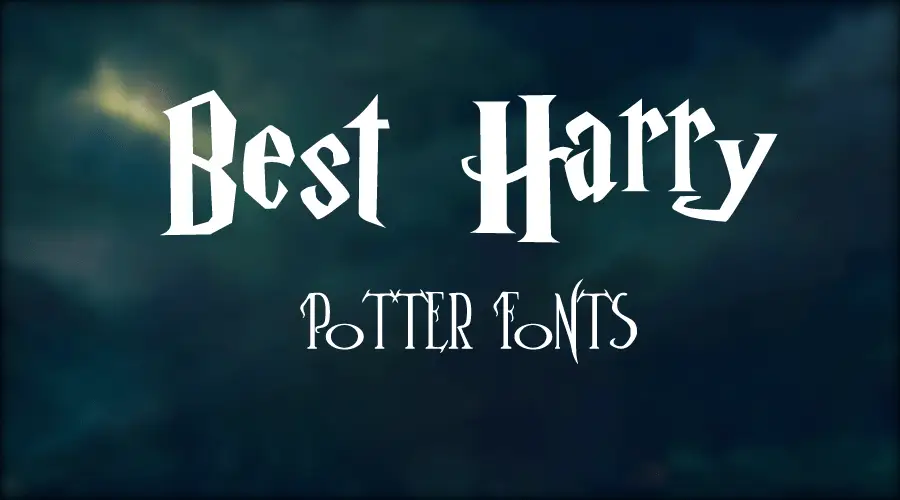
If you’re a fan of the magical world of Harry Potter, you’ll be delighted to explore a collection of enchanting fonts inspired by the beloved series. These Harry Potter fonts capture the essence and whimsy of J.K. Rowling’s wizarding world, allowing you to bring a touch of magic to your projects and creations. Let’s dive into this captivating collection:
Harry Potter Book And Movie Fonts
Step into the enchanting world of Harry Potter with our incredible Harry Potter Book and Movie Fonts collection. Immerse yourself in the magic and wonder of J.K. Rowling’s beloved series as you explore a mesmerizing assortment of typefaces inspired by books and movies. From the famous Harry Potter font to mystical runes and charming designs, these fonts will transport you to the halls of Hogwarts and beyond.
Legendary Runes
The “Legendary Runes” font draws inspiration from the mystical symbols and ancient runic alphabets that play a significant role in the Harry Potter universe. Use this font to infuse your designs with mystery and ancient wisdom.
Dumbledore Font
The “Dumbledore Font” pays homage to the wise and revered headmaster of Hogwarts, Albus Dumbledore. This elegant and dignified font captures the essence of Dumbledore’s wisdom and authority, making it a fitting choice for projects that require a touch of gravitas.
HogwartsWizard Font
Step into the shoes of a Hogwarts wizard with the “HogwartsWizard Font.” This playful and whimsical typeface reflects the magical and mischievous spirit of the students at the School of Witchcraft and Wizardry. Let this font transport you to a world of spells and adventures.
Parseltongue
Unleash the power of the Dark Arts with the “Parseltongue” font. Inspired by the hissing language spoken by snakes, this font captures the eerie and sinister nature associated with Slytherin House and Lord Voldemort. Use it sparingly for a touch of dark allure.
Wizard World Font
Step into a world of magic and wonder with the “Wizard World Font.” This whimsical and playful typeface reflects the joyful and imaginative spirit of the wizarding community. Let this font add a dash of enchantment to your designs.
Magic School
Embrace the enchantment of learning at a magical institution with the “Magic School” font. This typeface combines elegance and whimsy, reminiscent of the calligraphy found in ancient spellbooks. Use it to give your designs a touch of academic magic.
Parry Hotter Font
The “Parry Hotter Font” is a delightful homage to the world of Harry Potter. With its quirky and charming letterforms, this font captures the essence of the magical adventures and misadventures of the series. Let it add a whimsical touch to your projects.
Harry P Font
Last but not least, the “Harry P Font” offers a playful twist on the classic Harry Potter typeface. With its slightly distorted and quirky letterforms, this font injects fun and mischief into your designs, reminiscent of the Weasley twins’ pranks.
Harry Potter Fonts: Fantastic Beasts Series
Step into the captivating world of Harry Potter Fantastic Beasts Fonts. Embark on a magical adventure with our collection of fonts inspired by the Fantastic Beasts series. From the spellbinding Animales Font to the mesmerizing Crimes of Grindelwald Font, unleash your imagination and infuse your designs with the essence of these extraordinary creatures. Get ready to explore the enchanting realm of Fantastic Beasts!
Animales Fantastic
Inspired by the magical creatures found in the wizarding world, the “Animales Fantastic” font is a whimsical and playful typeface. Each letter is adorned with illustrations of fantastic beasts, bringing a sense of wonder and adventure to your designs. Let this font transport you to a realm where mythical creatures roam free.
Crimes of Grindelwald Font
Inspired by the movie “Fantastic Beasts: The Crimes of Grindelwald,” this font captures the essence of the wizarding world in the 1920s. Its Art Deco-inspired letterforms evoke a sense of glamour and intrigue, perfect for projects that require a vintage touch.
Similar Fonts inspired By Harry Potter Fonts
Discover a captivating collection of fonts inspired by the world of Harry Potter. Similar to Harry Potter Fonts, these typefaces transport you to a realm of magic and enchantment. Immerse yourself in the wizarding universe with these captivating fonts. Explore the mystical world of typography and unleash your creative magic. So let’s talk about them now.
Conclusion